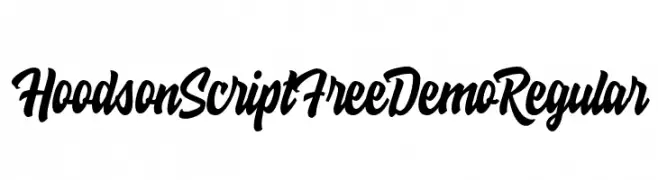
A bold, flowing script font with elegant cursive letterforms.
A graceful script font with flowing, interconnected letters and elegant flourishes.
A bold, cursive font with interconnected characters and a strong visual impact.
An elegant, flowing script font with smooth, cursive strokes and graceful curves.
A dynamic brush script font with bold, fluid strokes and a lively, hand-drawn quality.
An elegant script font with flowing lines and intricate swashes, perfect for sophisticated designs.
A bold, flowing script font with elegant curves and a modern touch.
A bold, flowing script font with elegant, cursive letterforms.